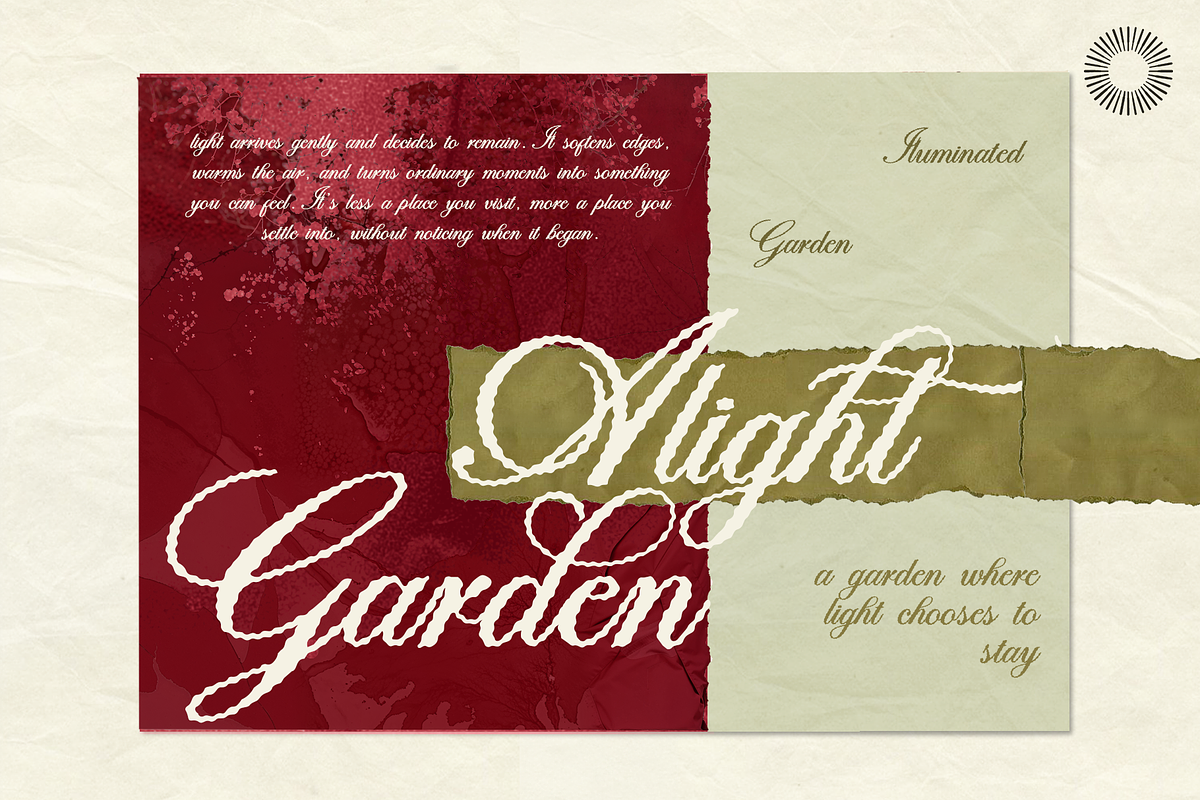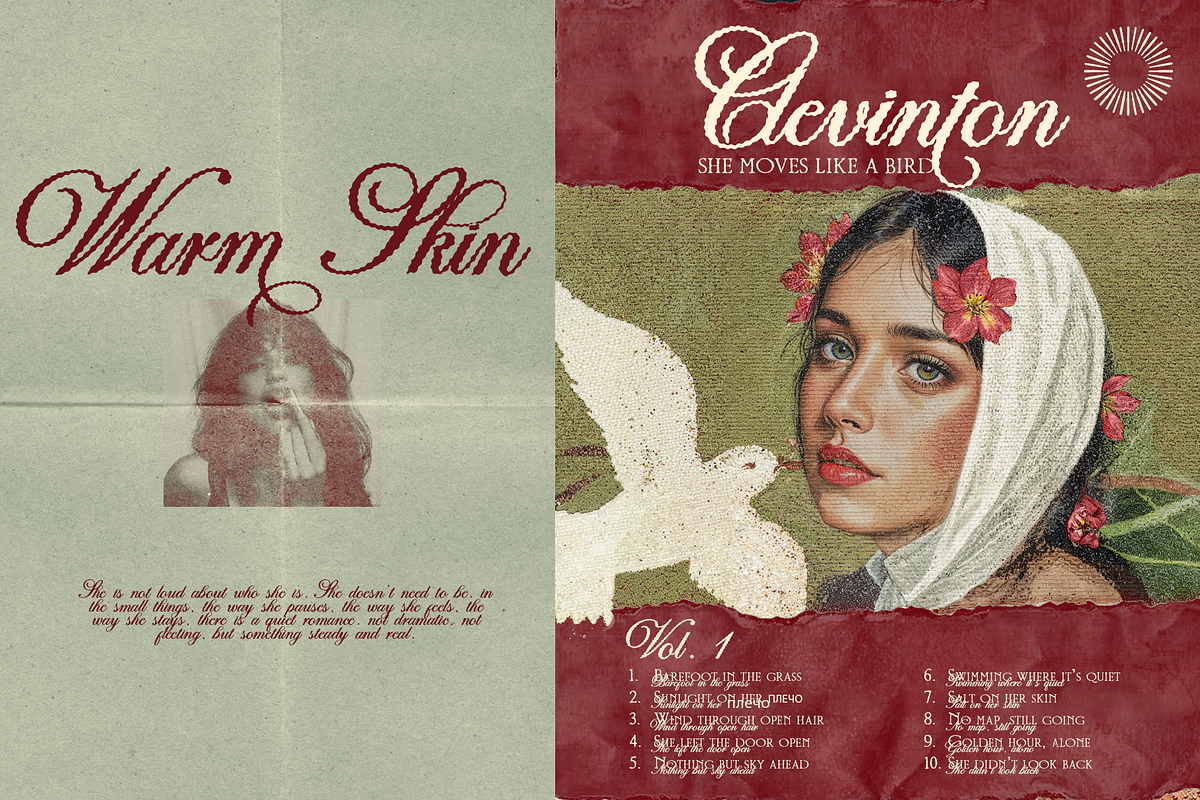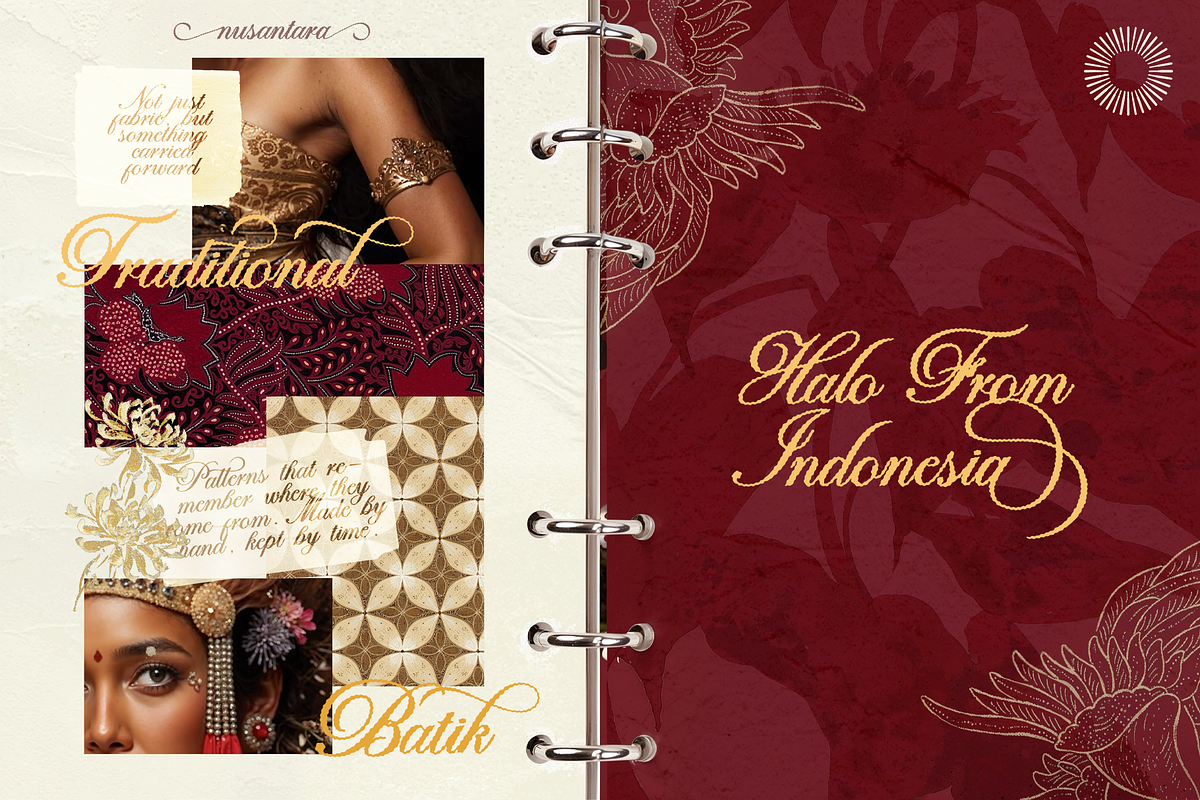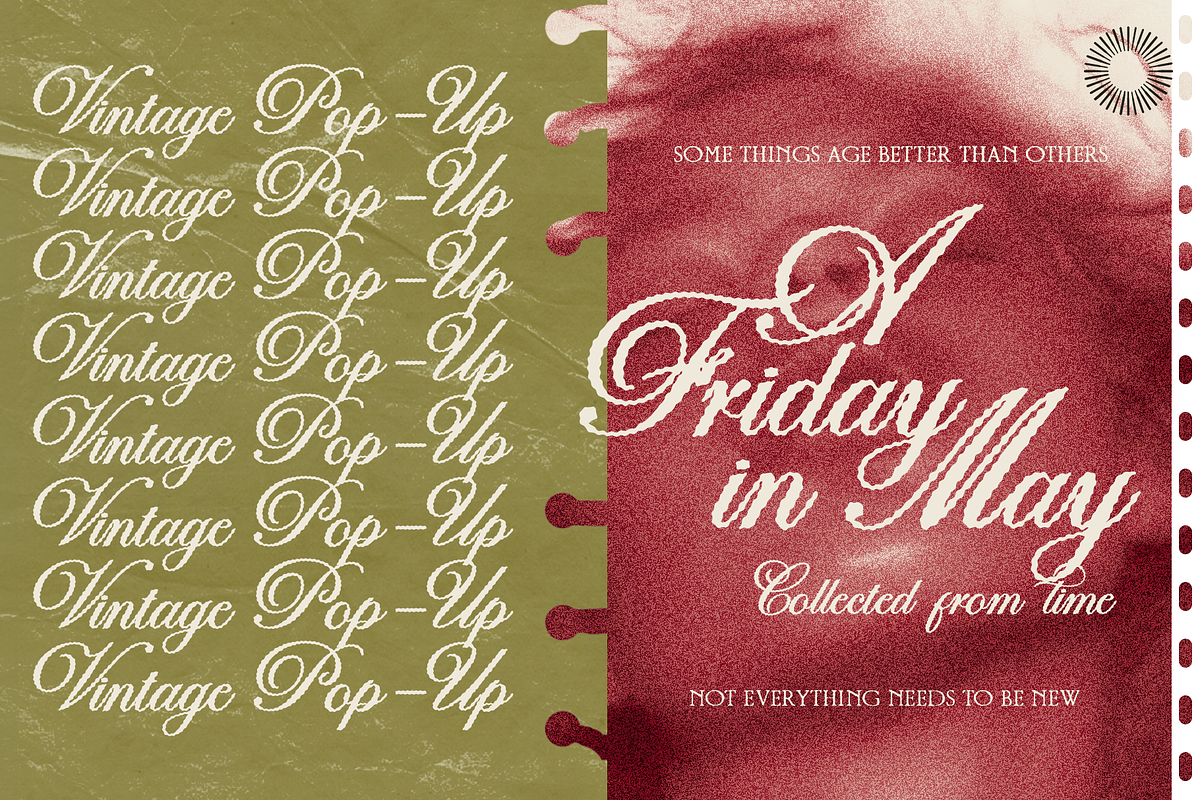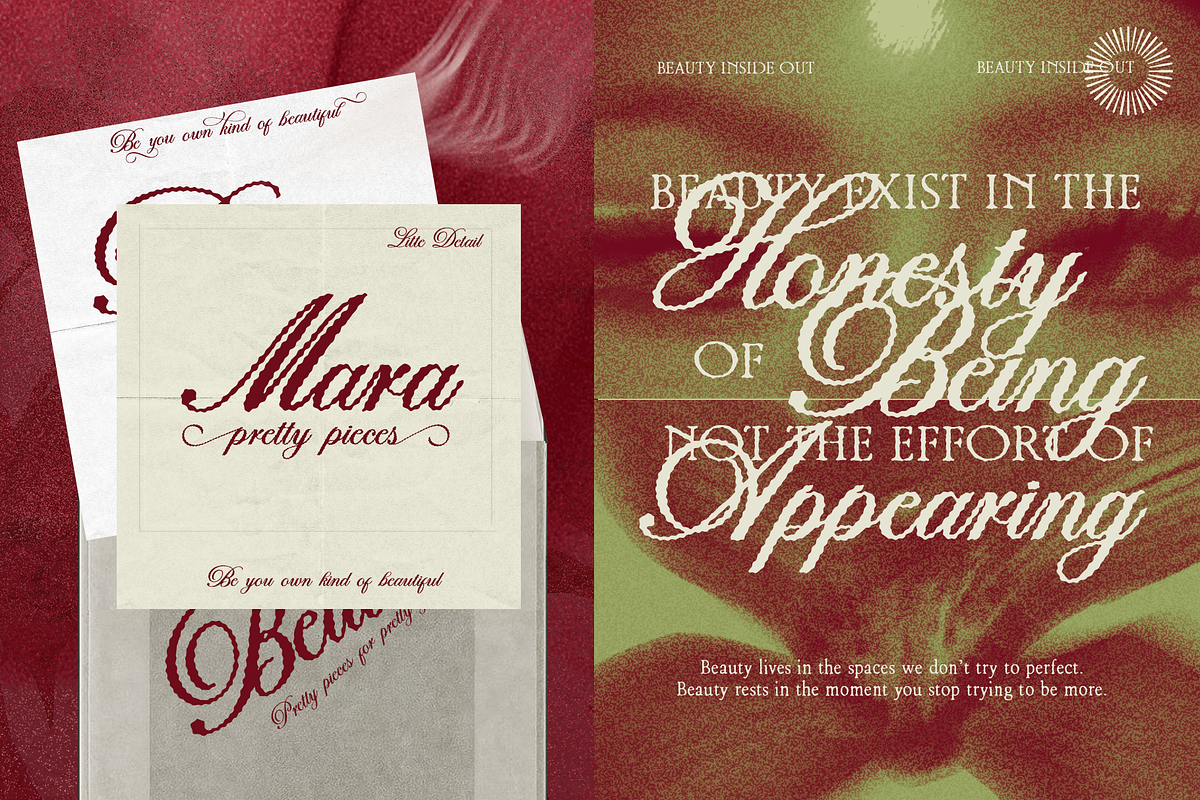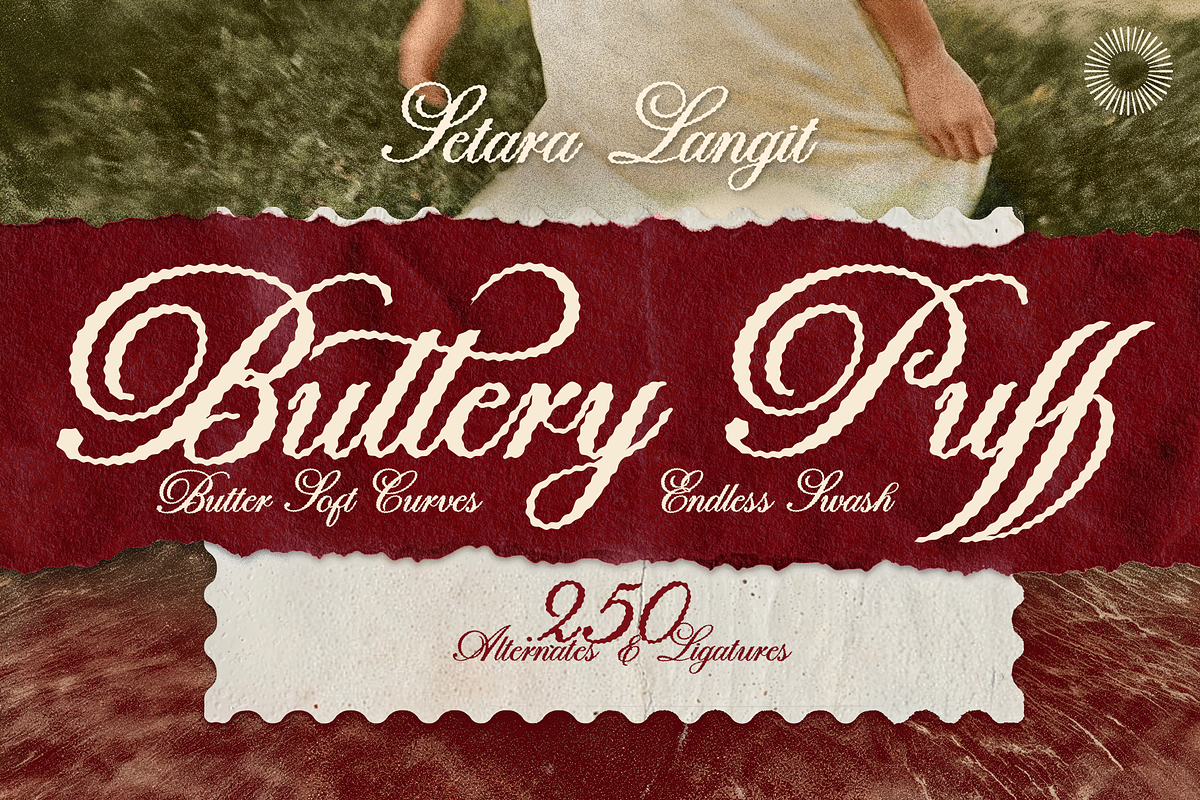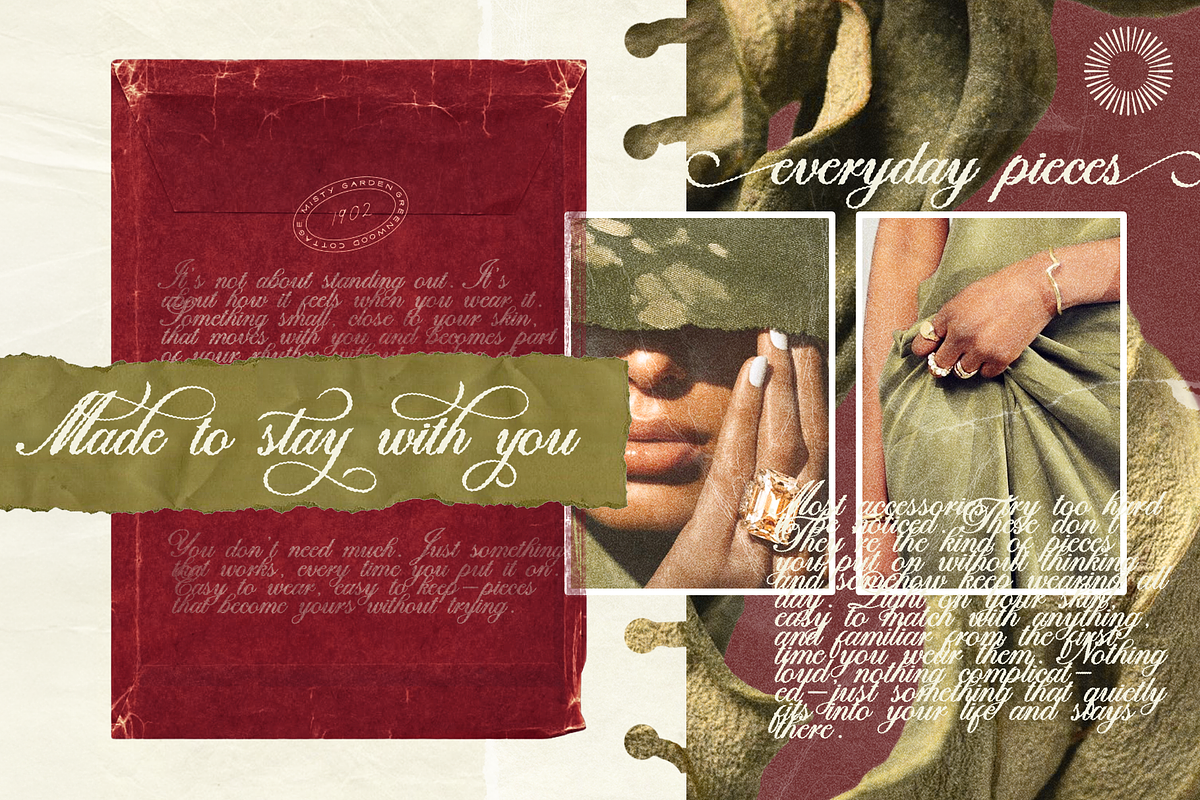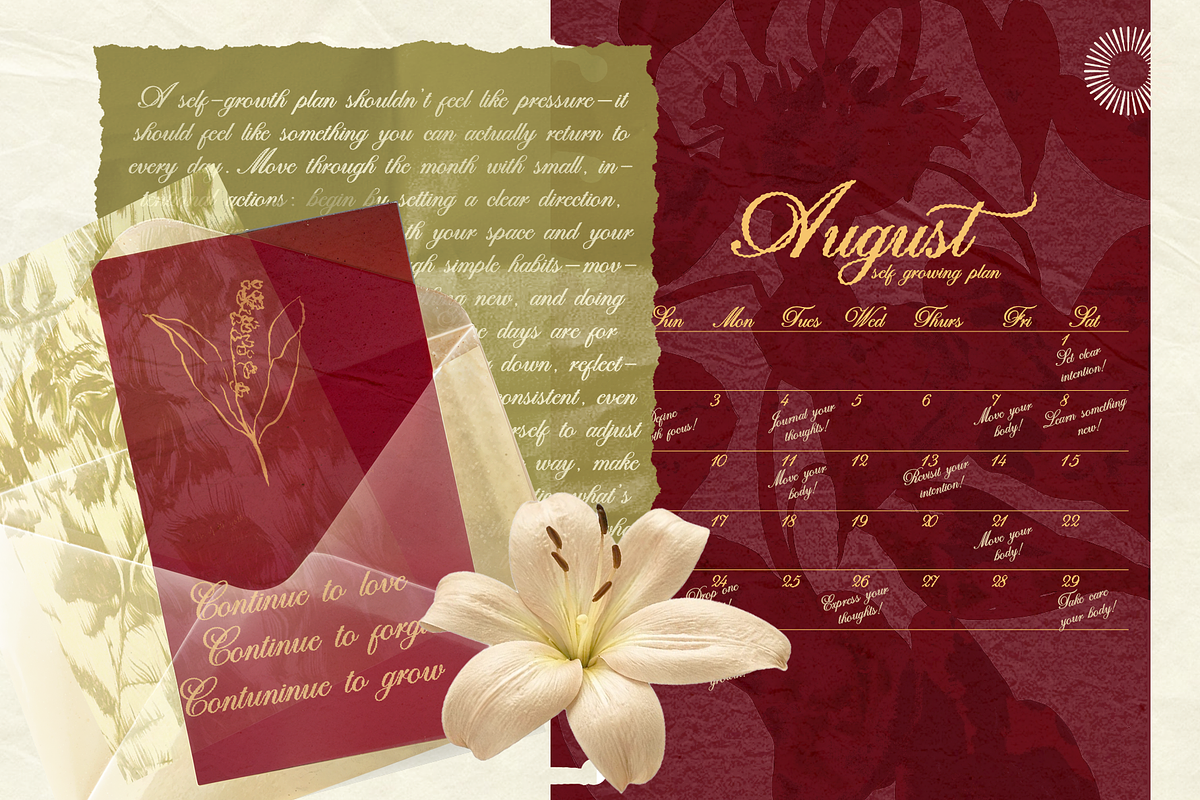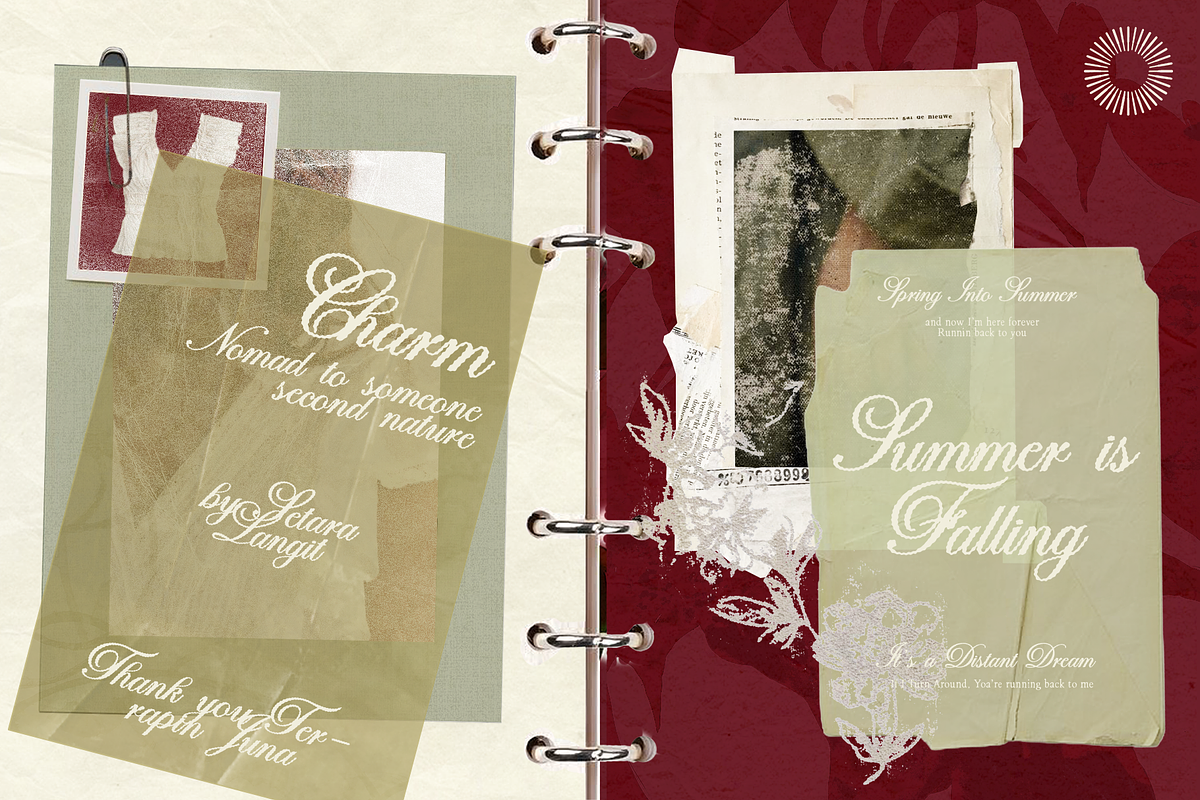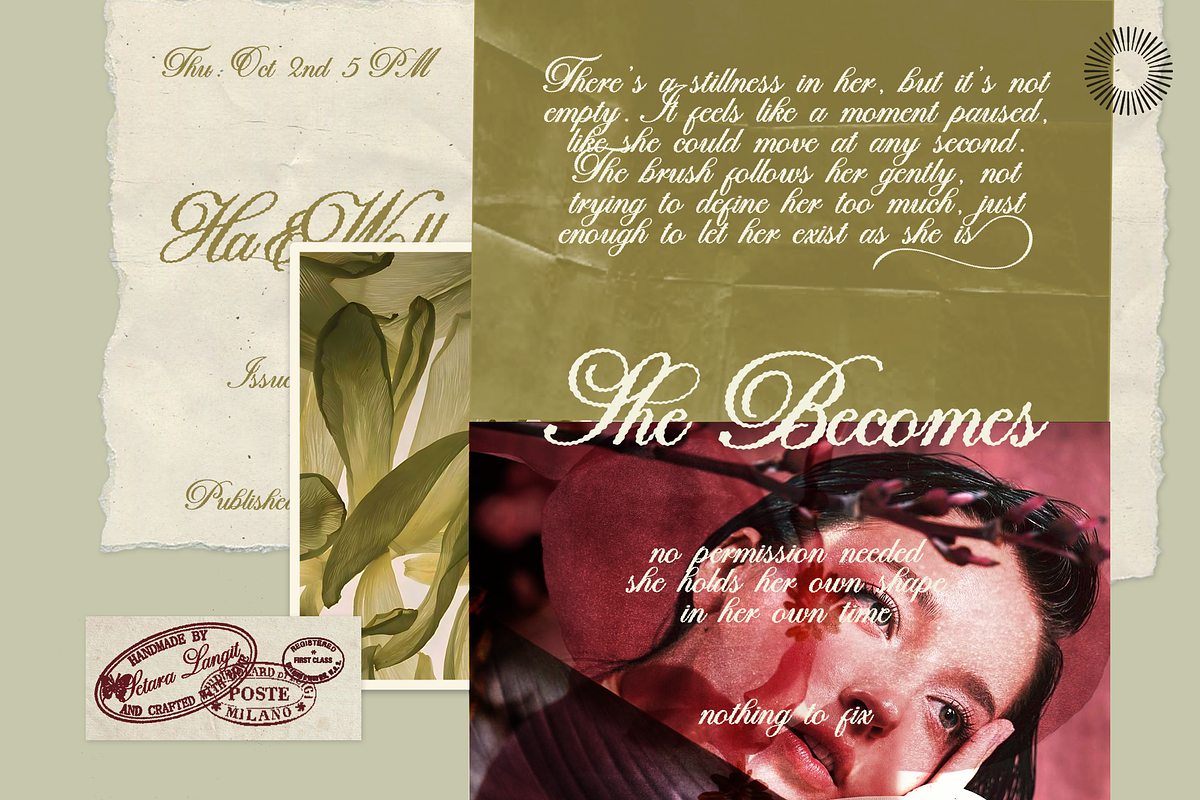
Buttery Puff - Endless Swash
Buttery Puff is a smooth and flowing script font designed with soft curves, elegant movement, and luxurious handwritten charm. With over 250 alternates and ligatures, this font creates beautifully connected lettering that feels rich, expressive, and effortlessly refined.
Inspired by the softness of butter and the graceful rhythm of classic calligraphy, Buttery Puff combines vintage romance with modern sophistication. Its flowing swashes and stylish details make every word feel dynamic and full of personality.
Carefully crafted for elegant typography, this font is perfect for standout branding and feminine visual identities.
Uppercase & lowercase letters
250 alternates & ligatures
Decorative swashes and flowing connections
Smooth flowing script style
Elegant handcrafted curves
Luxury vintage feel
Rich alternates and ligatures
Natural handwritten movement